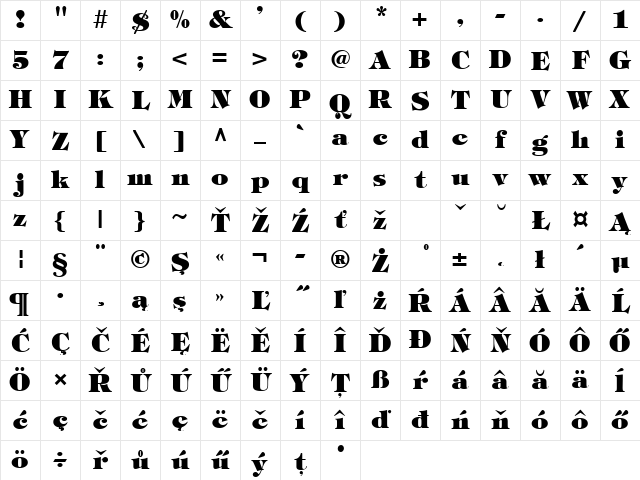
TimpaniHeavy Normal
TimpaniHeavy Family
Complete TimpaniHeavy Normal glyph index. Displaying only characters natively supported by TimpaniHeavy Normal font.
Design Context for TimpaniHeavy
TimpaniHeavy is a composed and adaptable typeface that performs quietly and consistently across a wide range of design contexts.
Pro Tip: Use TimpaniHeavy in both headline and body roles to test its range before committing to a single application.